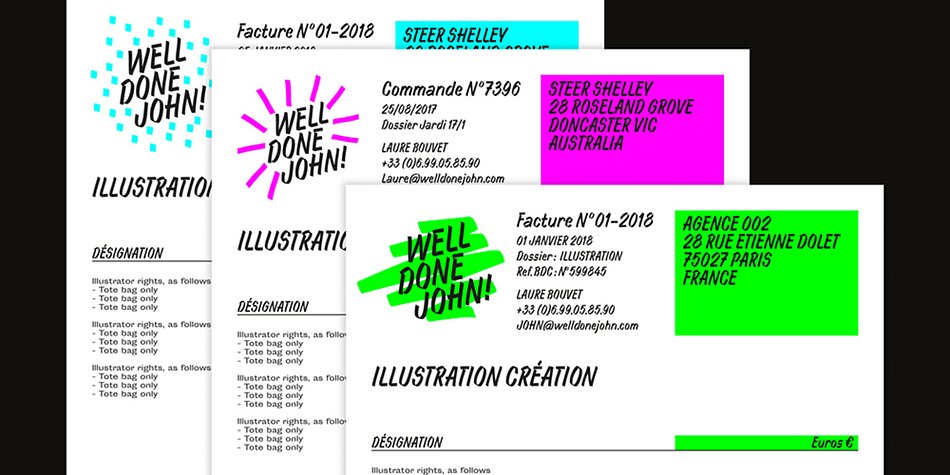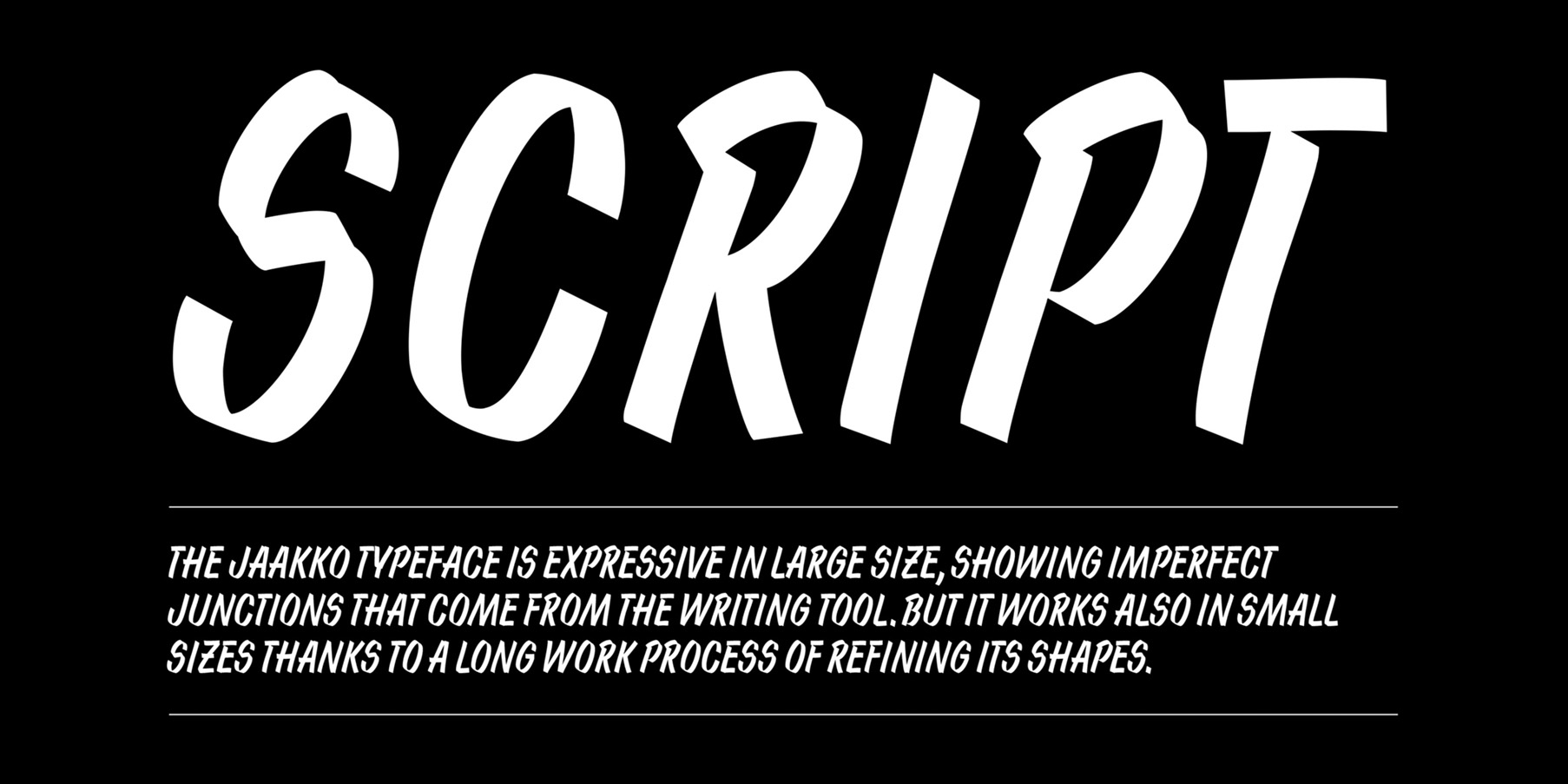
Jaakko
Designed by Émilie Rigaud, Jaakko is a brush display font published by A is for...
Jaakko is the revival of a vernacular typeface found in a Finnish handwriting manual intended for merchant students and published in 1991.
The original script was a commercial one, used mainly in shops, written with a thick felt pen onto a colored card for showing special offers.
Jaakko allows you to set any fraction you like, via a nicely home-made opentype feature (And this is the case for all A is for… fonts).